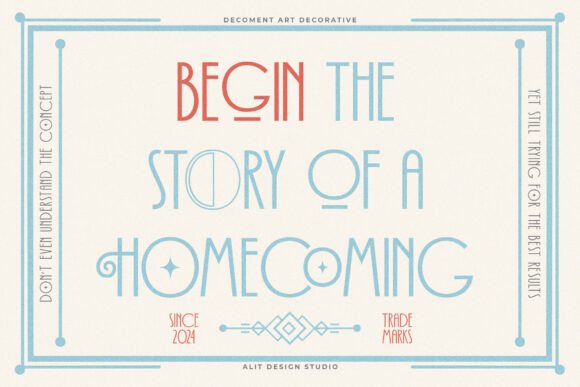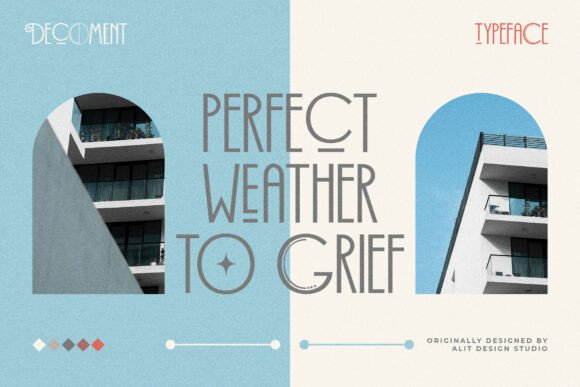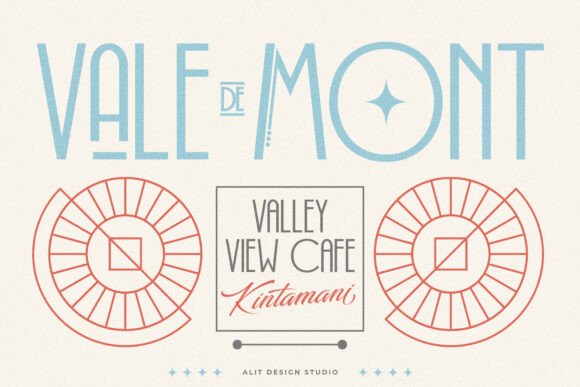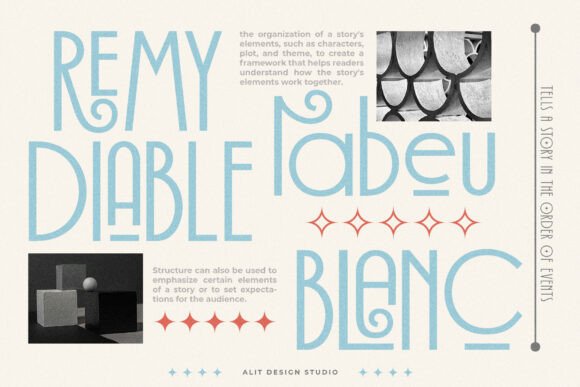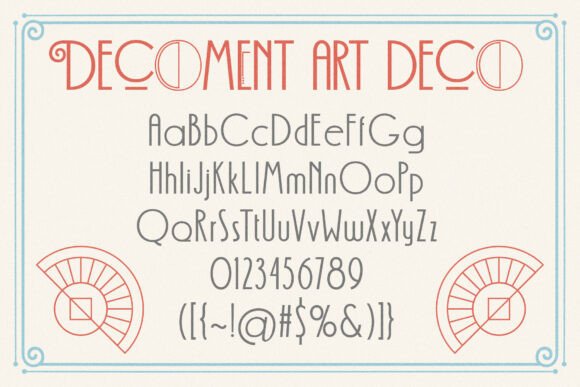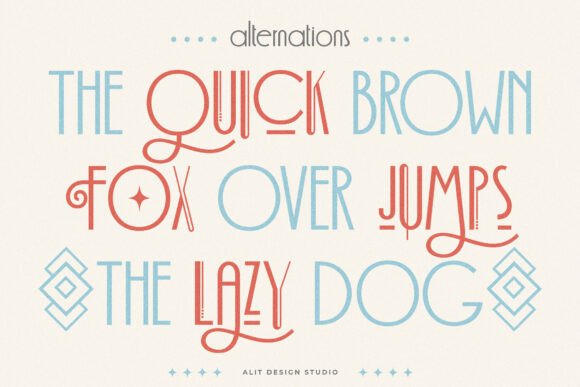
Introducing Decoment Font: Elevate Your Designs with Art Deco Elegance
In the world of typography, fonts play a crucial role in shaping the visual identity of a design project. For designers and crafters seeking to add a touch of luxury and sophistication to their creations, the Decoment Font is an exceptional choice. Inspired by the bold and glamorous aesthetics of the Art Deco era, this stunning typeface seamlessly blends vintage charm with contemporary versatility.
The Art Deco Era: A Timeless Source of Inspiration
The Art Deco movement, which emerged in the 1920s, was a cultural phenomenon that celebrated modernity, luxury, and glamour. Characterized by geometric shapes, metallic materials, and ornate decorations, Art Deco influenced various art forms, including architecture, fashion, and graphic design. Today, the style remains a timeless source of inspiration for designers seeking to evoke a sense of opulence and sophistication.
Decoment Font: A Modern Take on Art Deco Typography
Decoment Font is a meticulously crafted typeface that distills the essence of Art Deco into a modern, versatile font. With its bold lines, geometric shapes, and ornate details, Decoment Font is perfect for designers looking to add a touch of vintage glamour to their projects. The font’s unique character set includes uppercase and lowercase letters, numbers, and special characters, ensuring that you have everything you need to create stunning designs.
Key Features of Decoment Font
- Art Deco Inspiration: Decoment Font draws inspiration from the iconic typography of the Art Deco era, with geometric shapes and ornate details.
- Vintage Charm: The font’s classic design elements evoke a sense of nostalgia and sophistication, perfect for luxury brands and high-end designs.
- Contemporary Versatility: Decoment Font is designed to be versatile, making it suitable for a wide range of design applications, from logos and headings to body text and more.
- Extensive Character Set: The font includes a comprehensive character set, ensuring that you have everything you need to create stunning designs.
Design Applications for Decoment Font
Decoment Font is an incredibly versatile typeface that can be used in various design applications, including:
- Logo Design: Create stunning logos that exude luxury and sophistication.
- Branding: Establish a strong brand identity with Decoment Font’s unique and recognizable style.
- Advertising: Add a touch of glamour to your ad campaigns with Decoment Font’s bold and eye-catching design.
- Packaging Design: Elevate your packaging designs with Decoment Font’s sophisticated and luxurious feel.
Why Choose Decoment Font?
With so many fonts available, why choose Decoment Font? Here are just a few reasons:
- Unique Design: Decoment Font offers a distinctive design that sets it apart from other fonts.
- High-Quality: The font is meticulously crafted to ensure high-quality rendering and crisp lines.
In conclusion, Decoment Font is a stunning typeface that brings the elegance and sophistication of the Art Deco era to modern design. With its unique character set, vintage charm, and contemporary versatility, this font is a must-have for designers and crafters seeking to elevate their design projects. Whether you’re creating logos, branding materials, or advertising campaigns, Decoment Font is the perfect choice for adding a touch of luxury and uniqueness to your designs.